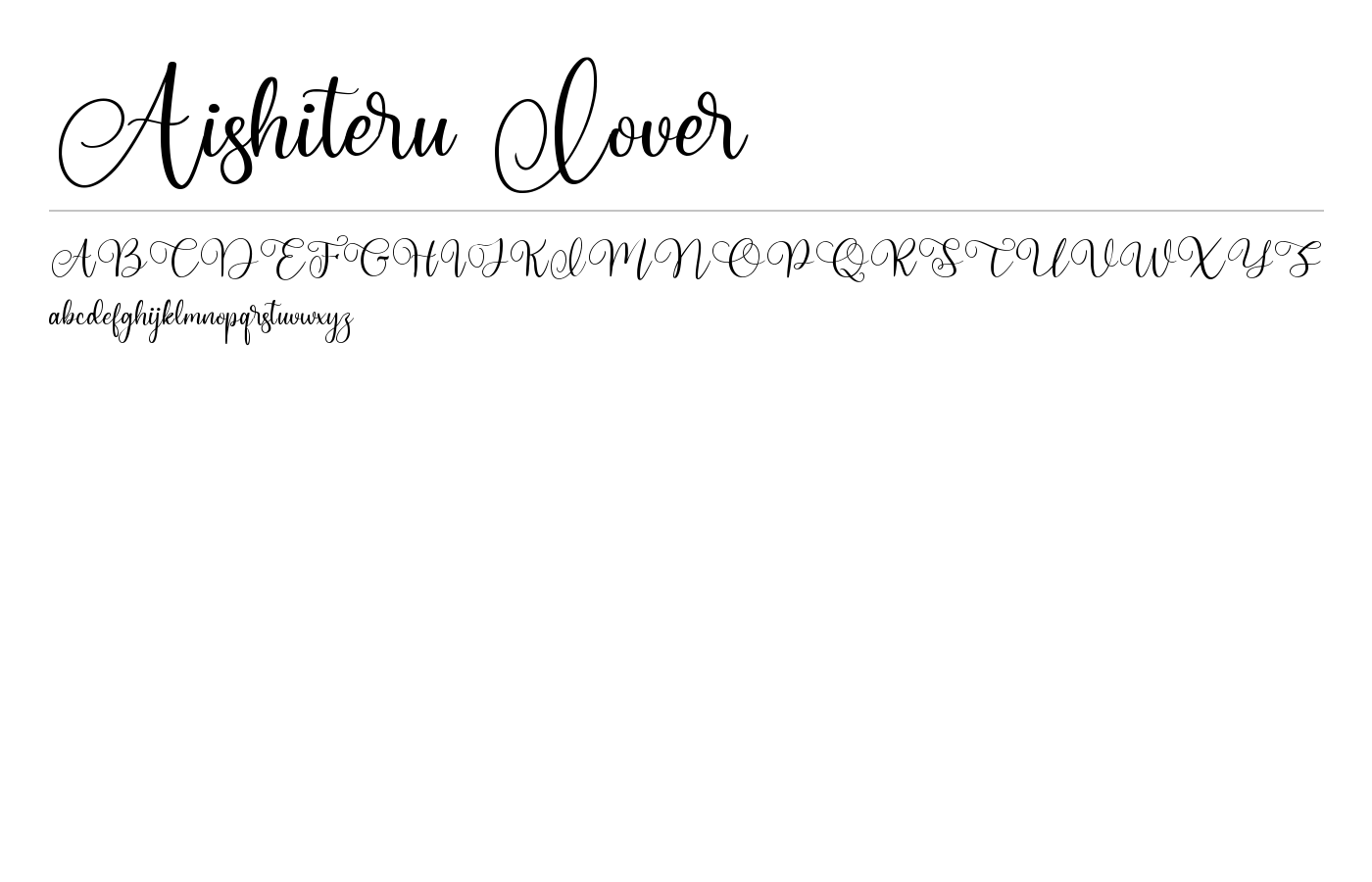
Aishiteru Lover is an elegant script font characterized by its delicate, flowing strokes and graceful swashes, giving it a romantic and sophisticated feel. Its high contrast between thick and thin lines and beautifully looping uppercase letters make it perfect for wedding invitations, luxury branding, and feminine design projects that require a touch of charm and refinement. This font works best in headlines and decorative uses where its detailed letterforms can truly shine.
Aishiteru Lover Font
About Aishiteru Lover Font
| Font family | Aishiteru Lover Font |
| Designer | Muhammad Farhan Sholeh Ramadhika |
| Trademark | Abas Creative |